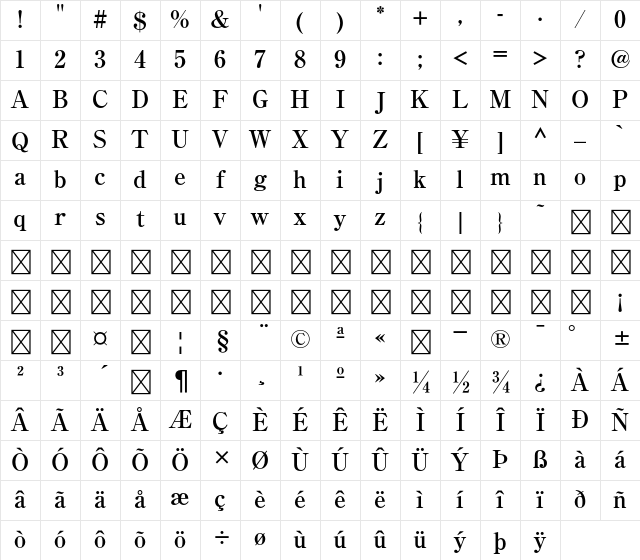
U-OTF Ryumin Upr B-KL
Style: B-KL
Complete U-OTF Ryumin Upr B-KL glyph index. Displaying only characters natively supported by U-OTF Ryumin Upr B-KL font.
Design Context for U-OTF Ryumin Upr
U-OTF Ryumin Upr is a composed and adaptable typeface that performs quietly and consistently across a wide range of design contexts.